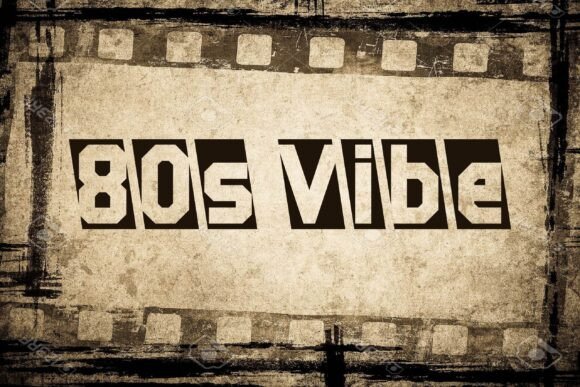
The Ultimate 80s Vibe Font: A Retro Revival for Your Designs
I’ll never forget the time I was working on a project to create a retro-style poster for a client’s neon-lit themed party. I had all the graphics and colors sorted, but something was missing – the perfect font. That’s when I stumbled upon the 80s Vibe font, and it instantly transported me back to the era of big hair, big phones, and even bigger personalities. In this article, I’ll share my love for this bold and stylish font, its features, and how to make the most of it in your designs.
A Personal Review: What I Love About 80s Vibe
Here’s what makes 80s Vibe a standout font:
• ✨ Retro charm: The font perfectly captures the energetic spirit of the 1980s, making it ideal for projects that require a nostalgic touch.
• ✅ Versatility: With 96 unique glyphs and 95 characters, 80s Vibe offers a wide range of creative possibilities.
• 💥 Visual appeal: The font’s bold and decorative flair makes it perfect for movie titles, cartoon and game names, T-shirt designs, and more.
• 👍 Easy to read: Despite its bold style, 80s Vibe remains surprisingly legible, making it suitable for both headlines and body text.
While 80s Vibe is an amazing font, there are a few things to keep in mind:
• 🤔 Limited use in body text: Due to its bold nature, 80s Vibe might not be the best choice for lengthy paragraphs or body text.
• ⚠️ Glyph compatibility: Some glyphs might not work seamlessly across all platforms or software, so it’s essential to test the font before finalizing your design.
One of the standout features of 80s Vibe is its OpenType features and glyphs. With 96 unique glyphs and 95 characters, you can add an extra layer of creativity to your designs. To access these features, you’ll need to use a design platform that supports OpenType, such as Adobe Photoshop or Illustrator.
The Designer Inspiration Behind 80s Vibe
The story behind 80s Vibe’s creation is one of passion and nostalgia. According to the designer, the font was inspired by the iconic typography of the 1980s, from neon-lit billboards to classic video games. The goal was to create a font that would capture the essence of this vibrant era and bring it to life in modern designs.
What type of projects is 80s Vibe best suited for? 80s Vibe is perfect for projects that require a bold, retro touch, such as movie titles, cartoon and game names, T-shirt designs, and more.
Is 80s Vibe suitable for body text? While 80s Vibe is legible, its bold nature makes it better suited for headlines and titles. For body text, a more traditional font might be more suitable.